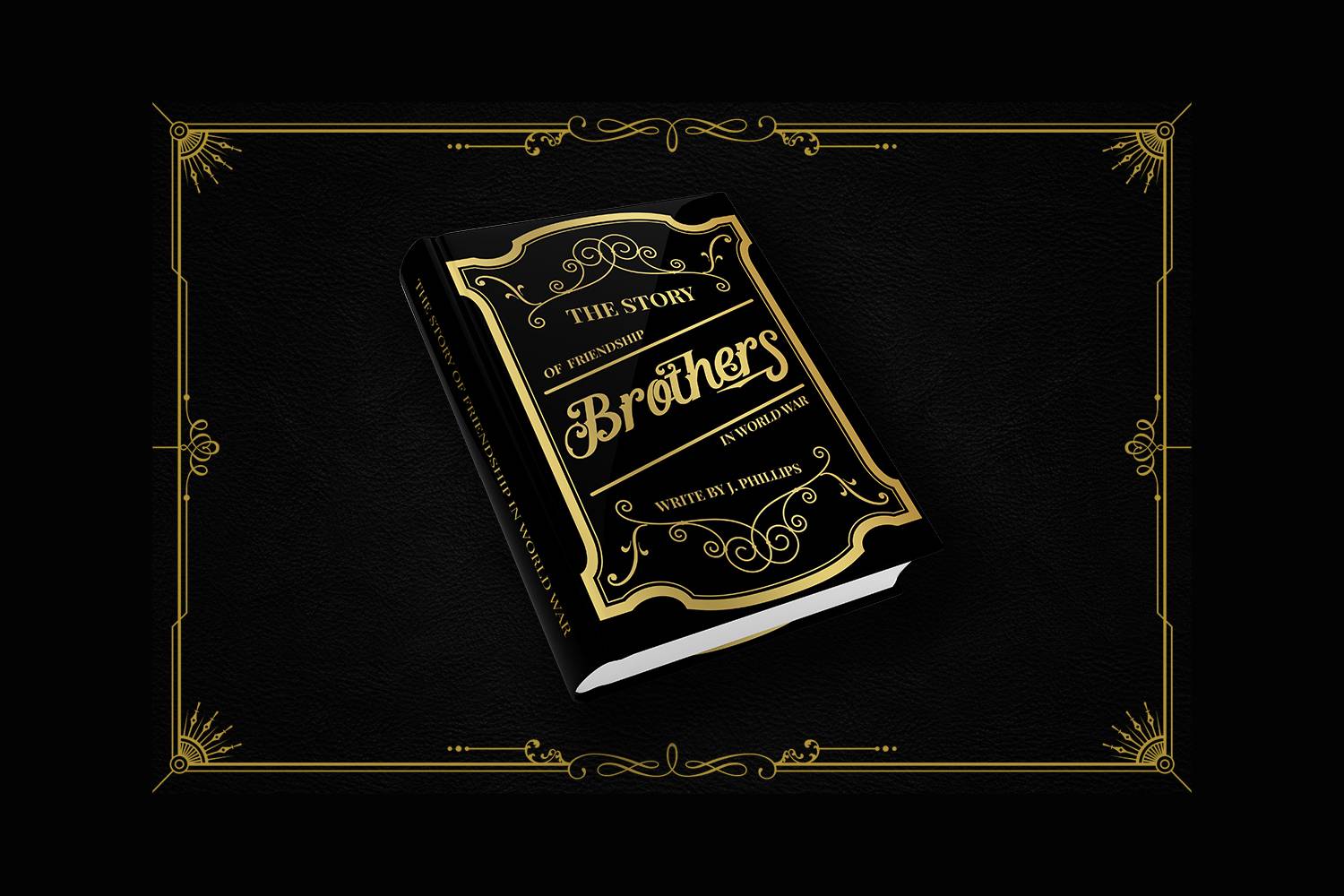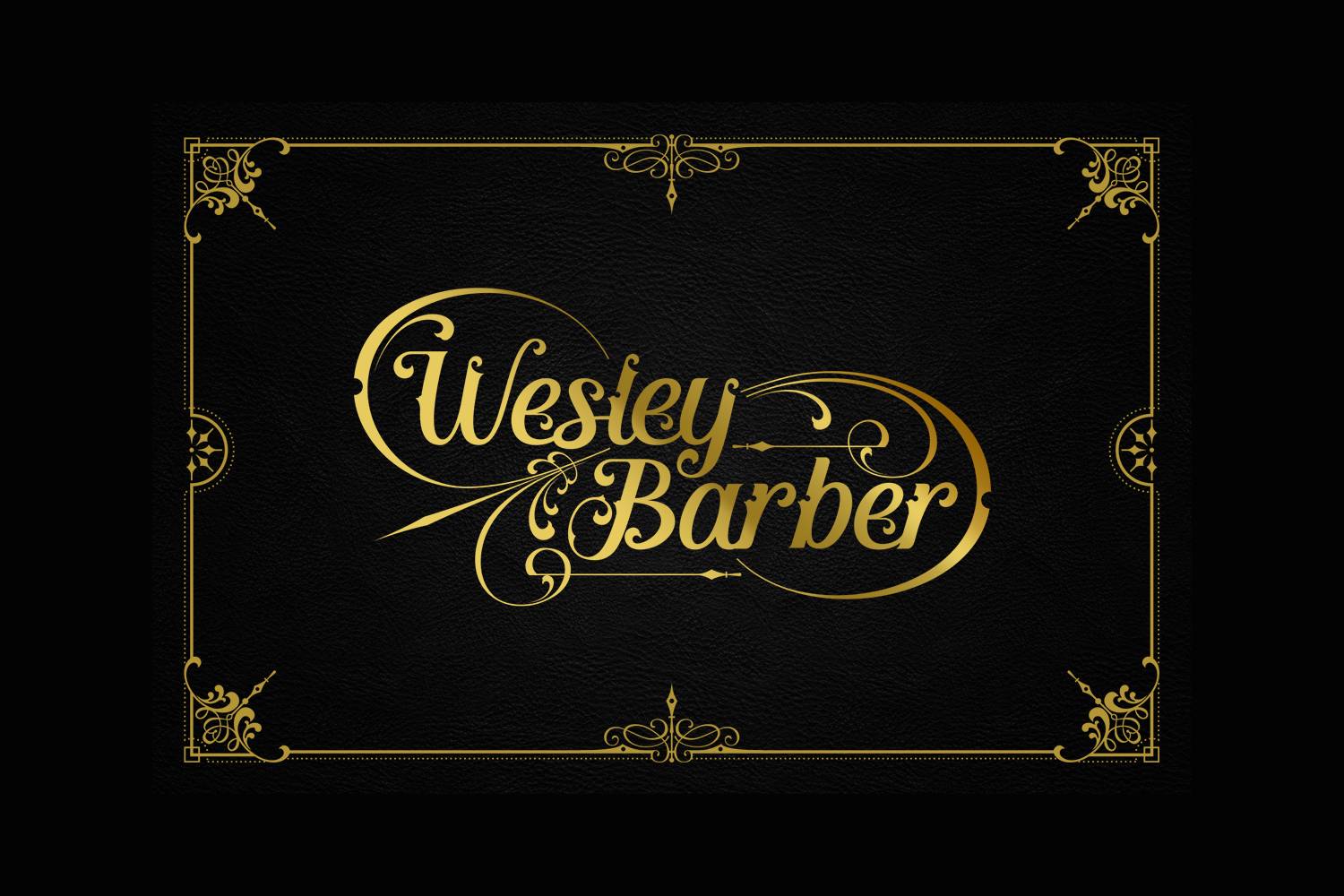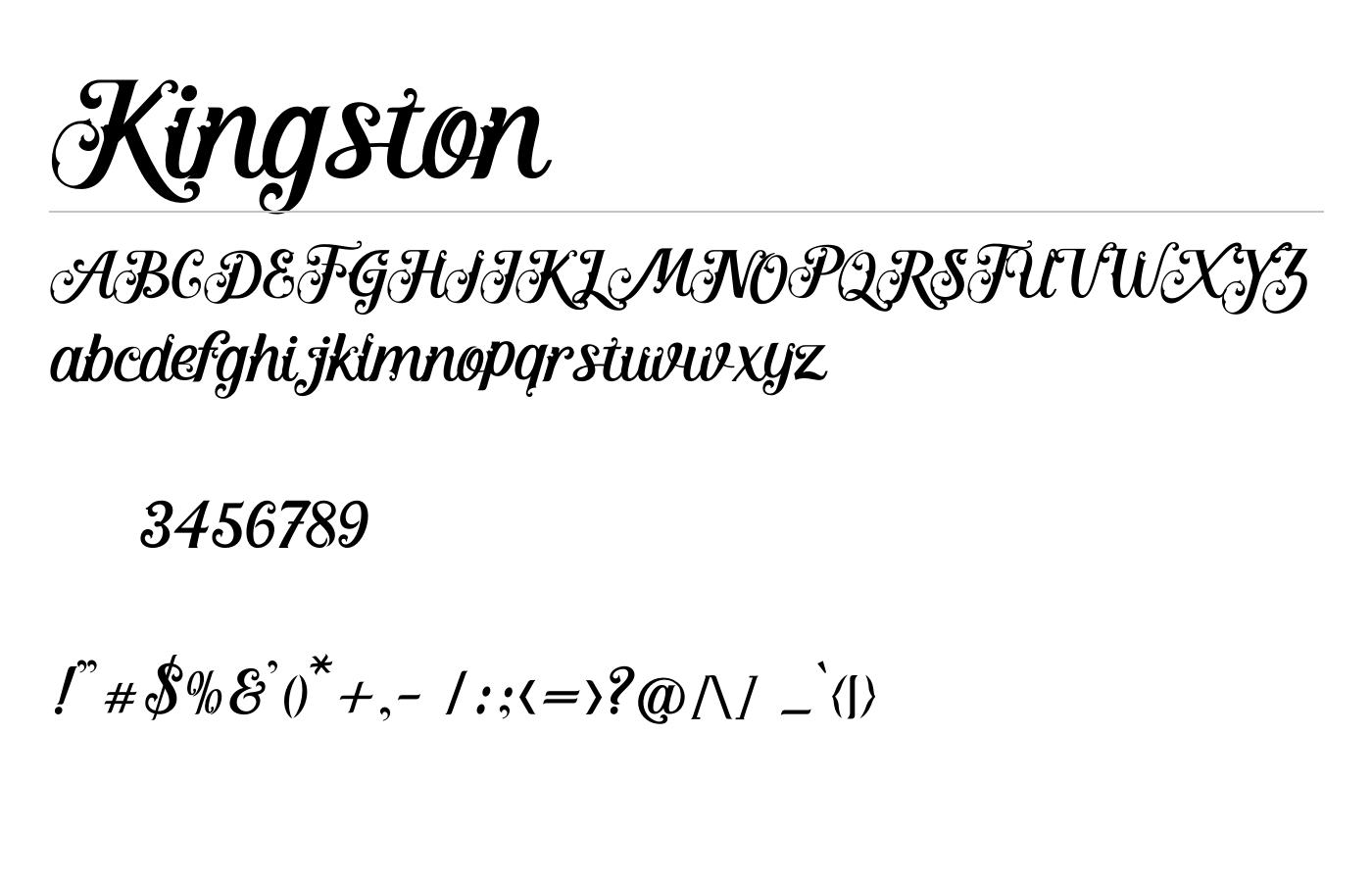
Kingston is an elegant serif script font that combines a classic serif structure with ornate, swirling details, giving it a refined and decorative personality. With its moderate weight, moderately condensed width, and high contrast between thick and thin strokes, it captures a vintage, sophisticated feel ideal for luxurious branding, invitations, and stylish headlines. Its graceful letterforms and charming flourishes make it perfect for designs that need a touch of elegance and flair.
Kingston Font
About Kingston Font